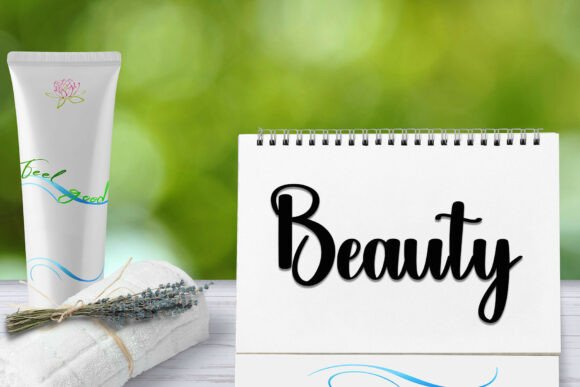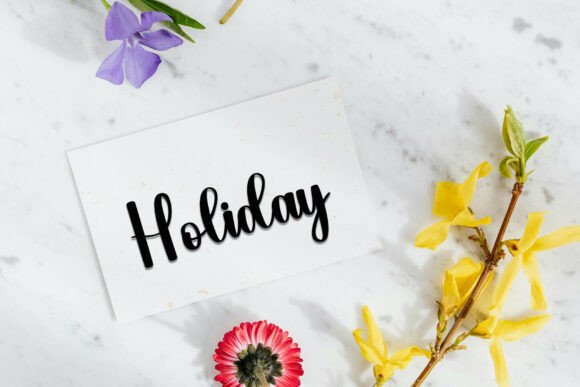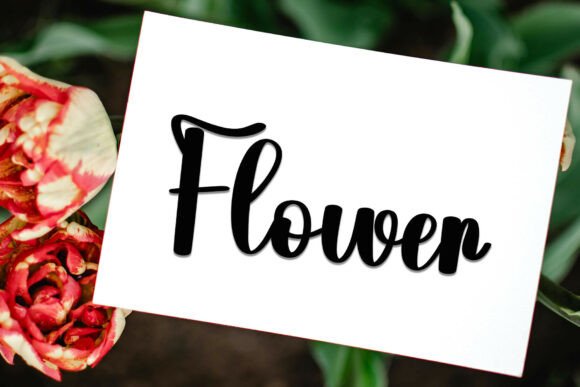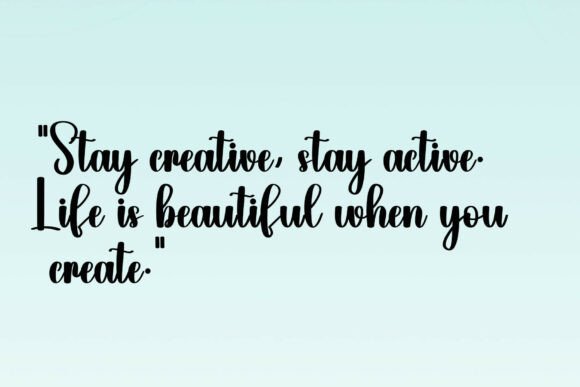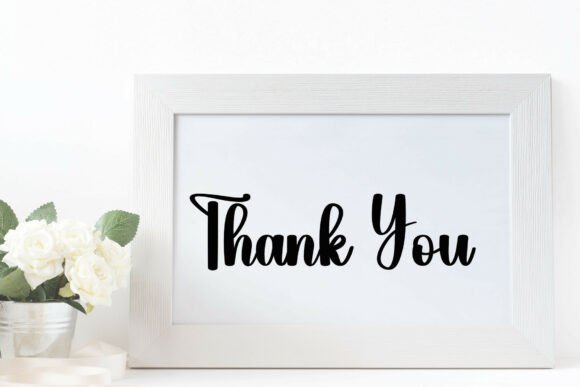
Introducing Daughter Font: The Ultimate Friendly Handwritten Font for Creative Projects
Are you a designer, crafter, or DIY enthusiast looking for a font that can add a personal touch to your creative projects? Look no further than Daughter Font, a cute and casual handwritten font that exudes an incredibly friendly feel. In this article, we’ll dive into the features and benefits of Daughter Font, and explore how it can elevate your designs and projects to the next level.
What is Daughter Font?
Daughter Font is a beautiful, handcrafted font that is perfect for anyone looking to add a touch of warmth and personality to their designs. With its casual, handwritten style, this font is ideal for a wide range of creative projects, from social media graphics and Instagram posts to calligraphy scripts and DIY crafts.
Key Features of Daughter Font
- Cute and Casual Style: Daughter Font boasts a playful, informal style that is sure to capture the hearts of your audience. Its friendly feel makes it perfect for designs that require a personal touch.
- Handwritten with Love: This font is carefully crafted by hand, giving it a unique and authentic feel that sets it apart from other fonts.
- Versatile and Adaptable: Whether you’re designing for Instagram, creating calligraphy scripts, or working on DIY projects, Daughter Font can adapt to any creative idea you have.
- Easy to Read and Write: The clear and legible design of Daughter Font ensures that your text is easy to read and understand, making it perfect for a wide range of applications.
Use Cases for Daughter Font
Daughter Font is an incredibly versatile font that can be used in a variety of creative projects, including:
- Instagram Graphics: Add a personal touch to your Instagram posts and stories with Daughter Font. Its friendly feel and casual style make it perfect for social media graphics.
- Calligraphy Scripts: Use Daughter Font to create beautiful calligraphy scripts for DIY projects, such as wedding invitations, greeting cards, and more.
- DIY Crafts: From handmade cards to personalized gifts, Daughter Font can add a touch of warmth and personality to your DIY crafts.
- Branding and Packaging: Use Daughter Font to create unique and eye-catching branding and packaging designs that stand out from the crowd.
Why Choose Daughter Font?
With so many fonts available, why choose Daughter Font? Here are just a few reasons why this font stands out:
- Unique and Authentic: Daughter Font is carefully crafted by hand, giving it a unique and authentic feel that sets it apart from other fonts.
- High-Quality Design: Daughter Font is designed with high-quality and legibility in mind, ensuring that your text looks great in any application.
In conclusion, Daughter Font is a beautiful and versatile handwritten font that is perfect for designers, crafters, and DIY enthusiasts. With its cute and casual style, friendly feel, and high-quality design, this font is sure to elevate your creative projects to the next level. Whether you’re looking for fonts for Instagram, calligraphy scripts for DIY projects, or unique branding and packaging designs, Daughter Font is the perfect choice.